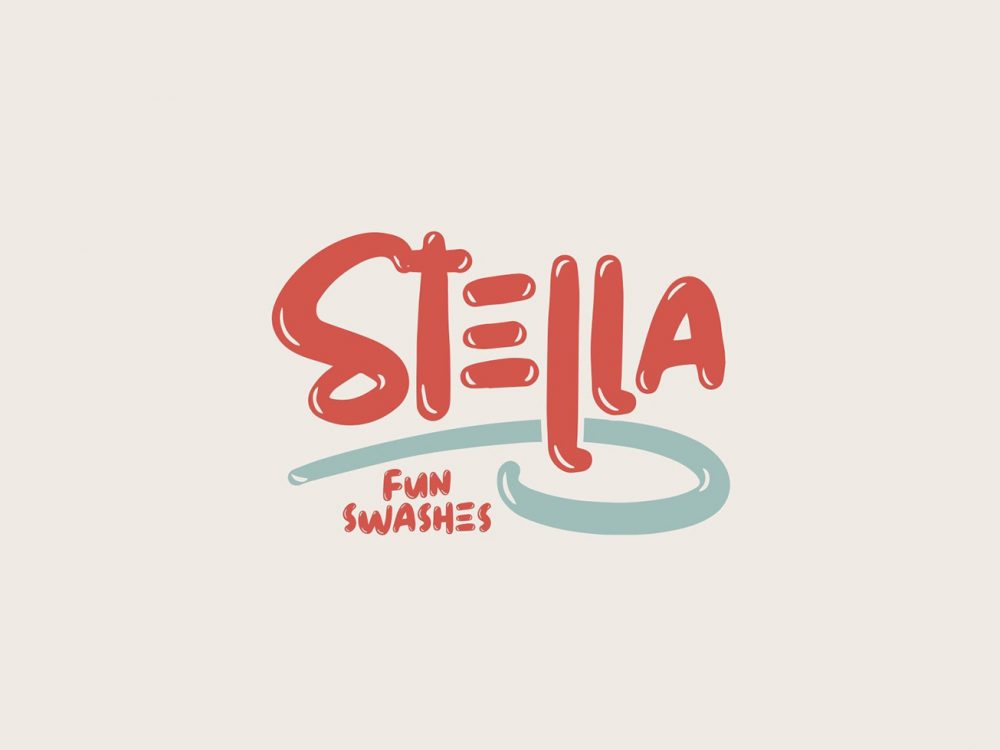
Free Stella Display Font
Free Stella Display Font is an interesting funny font that is perfect for creating various comic-style design projects. Use this font to create posters, cards, invitations, flyers, prints, and more.